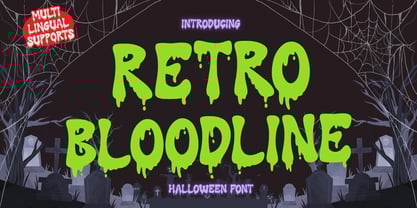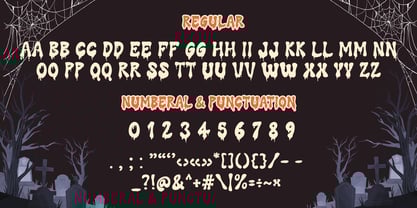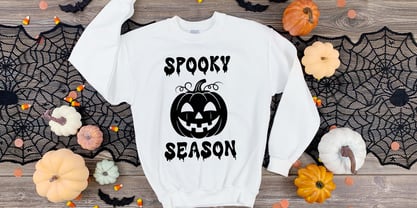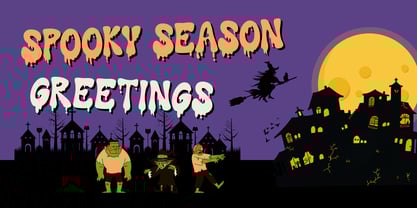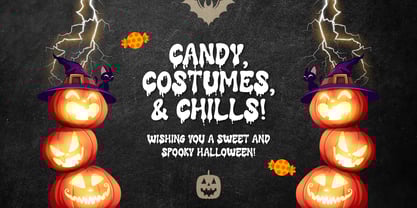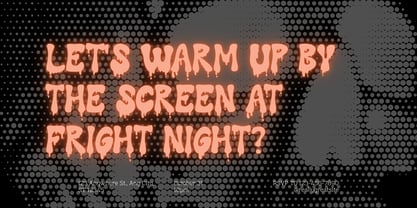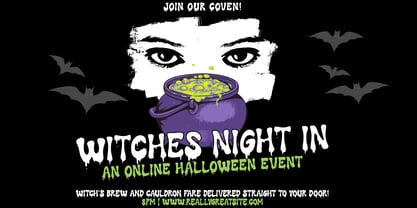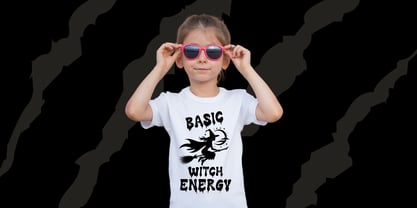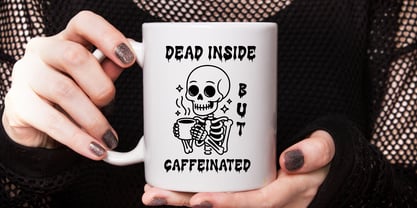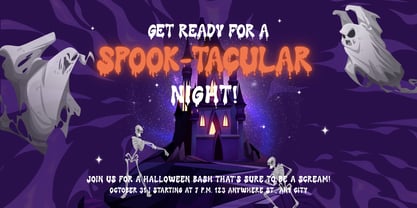
Retro Bloodline
by Brown Cupple Typeface
The Retro Bloodline Font Family was designed by Nattha​ Potchanad​ and published by Brown Cupple Typeface. Retro Bloodline contains 1 styles. More about this family
Immerse yourself in the chilling allure of Retro Bloodline, a Halloween-inspired display font that seamlessly blends entertainment with sincerity. With its distinct character, Retro Bloodline elegantly breathes life into an extensive array of projects, from engaging blog posts and distinctive logos to compelling branding elements. It accentuates the charm in advertisements, enlivens invitations and greeting cards, adds oomph to planners, enhances the visual appeal of photo albums, and even intensifies the magnificence of diverse decorations. Incorporate Retro Bloodline into your designs and delight in the ripples it creates. There’s no denying, this font augments beauty and love for the eerie, infusing each design with an irresistible Halloween-tinged charm.
Designers: Nattha​ Potchanad​
Foundry: Brown Cupple Typeface